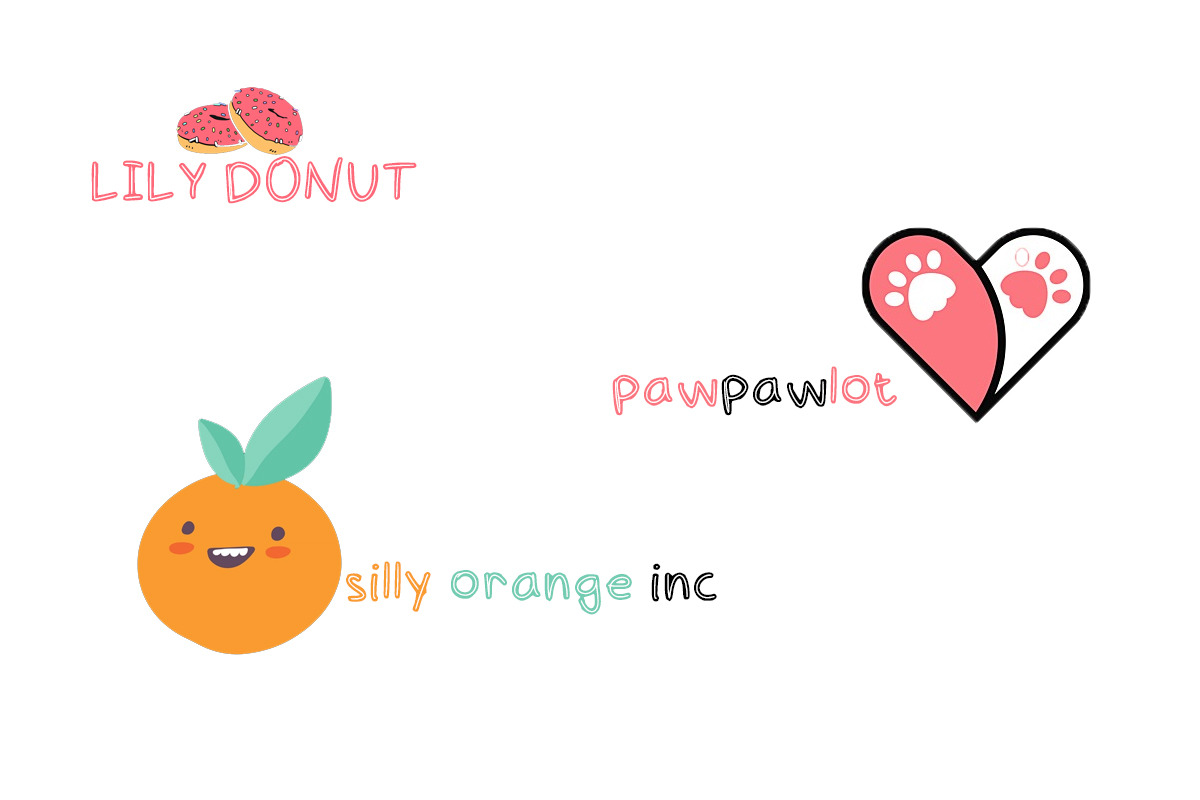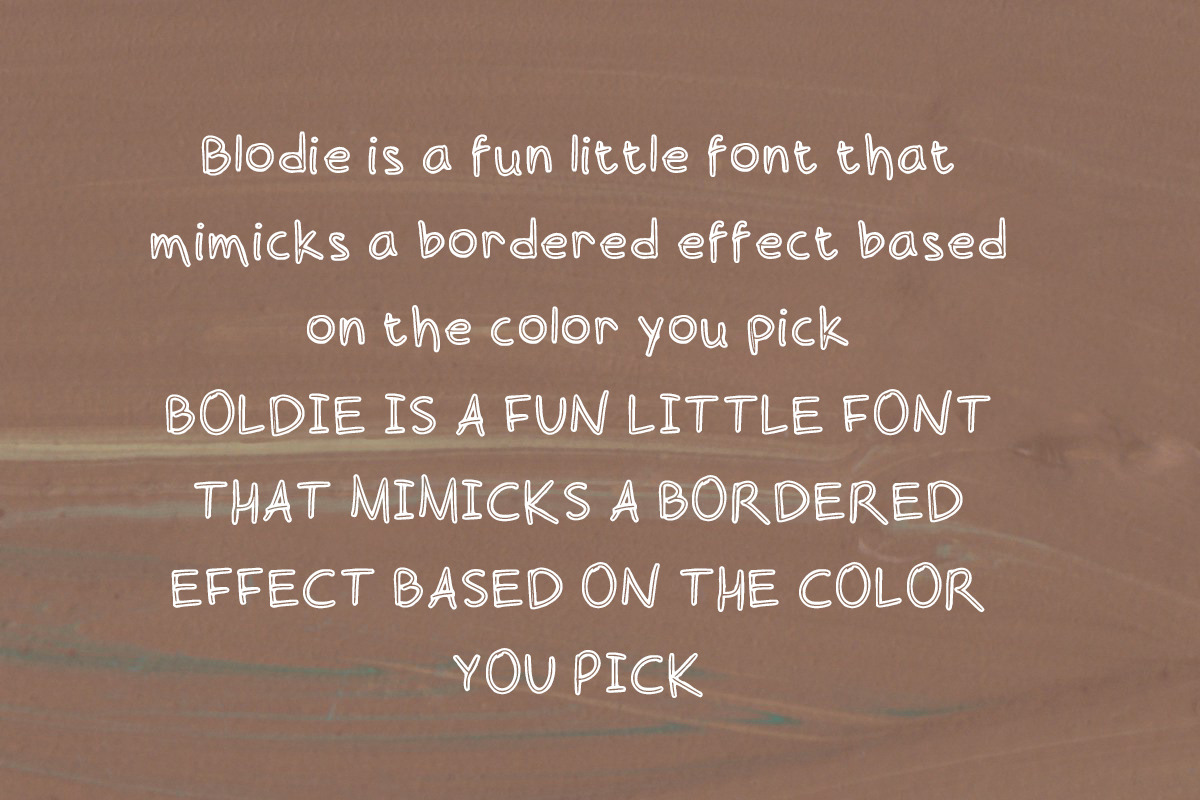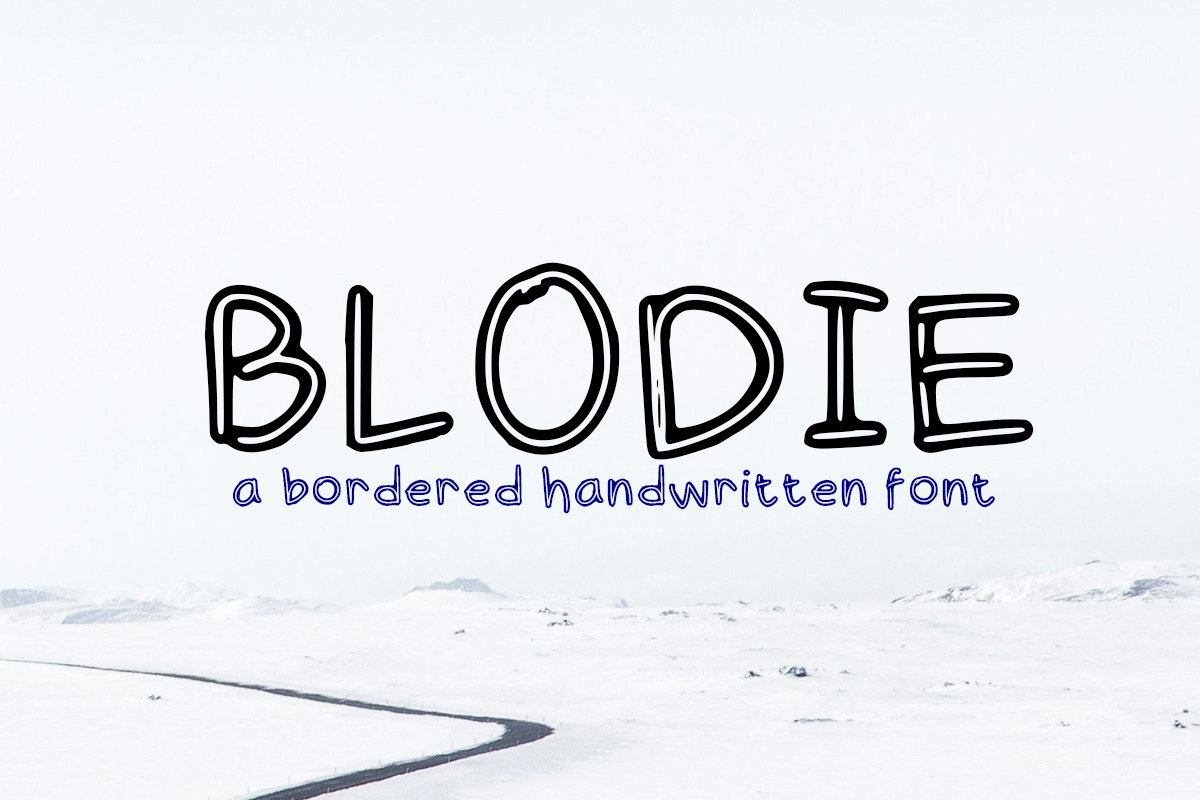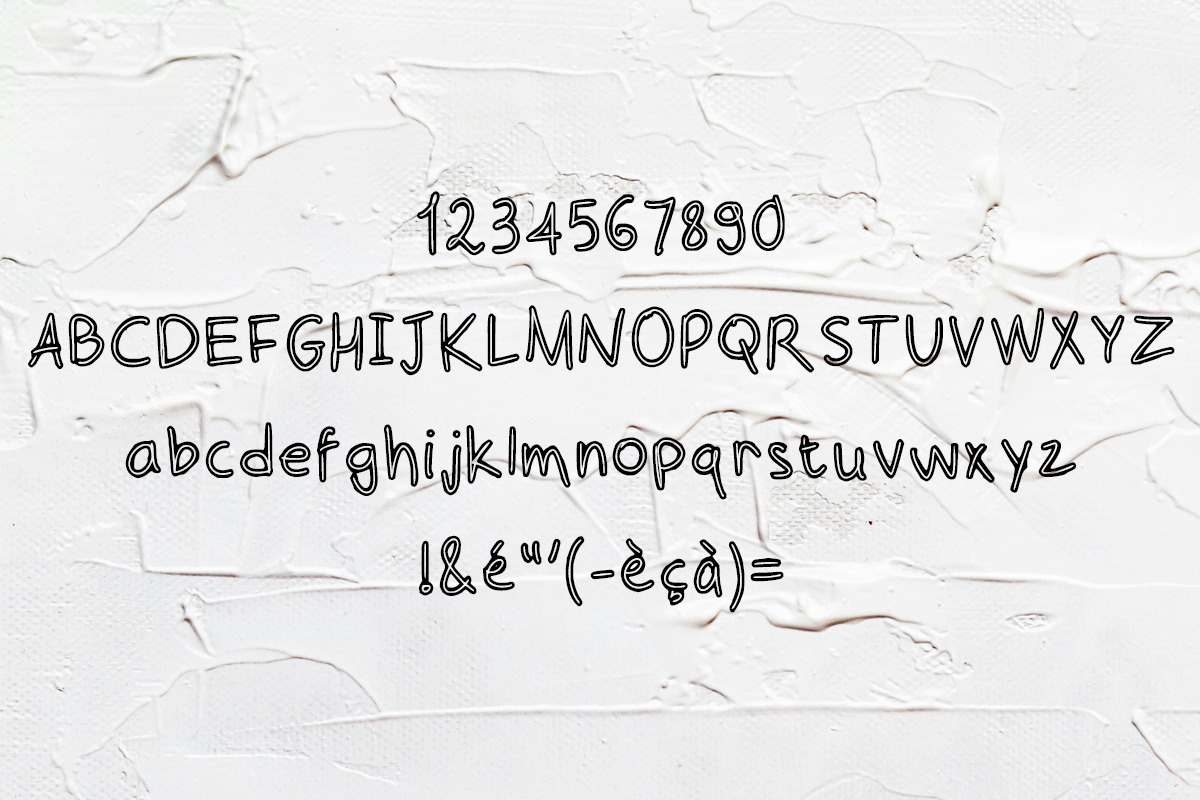
Blodie Font
Blodie Regular Handwritten Font
What makes it good or different? Blodie Regular stands out as a unique handwritten font that combines a casual yet sophisticated style. Its smooth curves and natural flow create a friendly and approachable look, perfect for designs that require a touch of personality and charm. The font is versatile, offering a polished but authentic handwritten feel.
Who will benefit the most from this product? Designers, content creators, and small business owners looking to add a human touch to their projects will benefit the most. Whether you’re creating invitations, social media graphics, branding materials, or cozy product packaging, Blodie Regular is an ideal choice.
Elegant handwritten style with a balance of casual and formal elements. Easy-to-read characters suitable for headlines, body text, and decorative accents. Supports both .OTF and .TTF formats, ensuring broad compatibility. Ideal for use in wedding invitations, greeting cards, logos, and seasonal designs.
Blodie Regular delivers a perfect balance of elegance and warmth, making it a must-have for your creative toolkit.